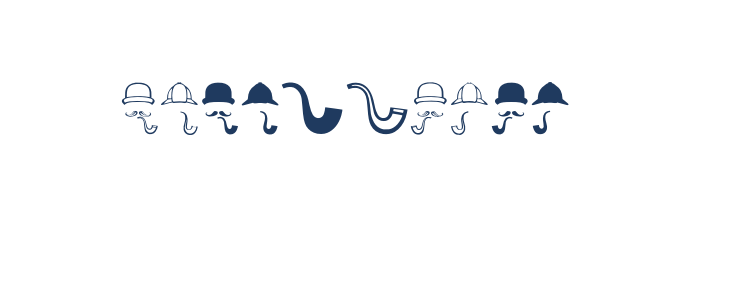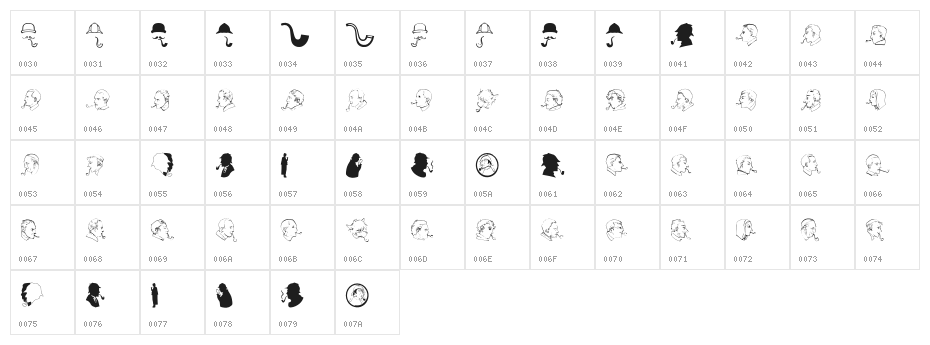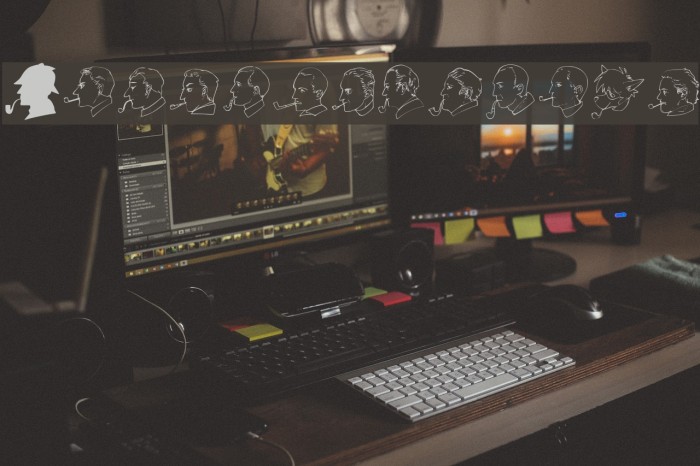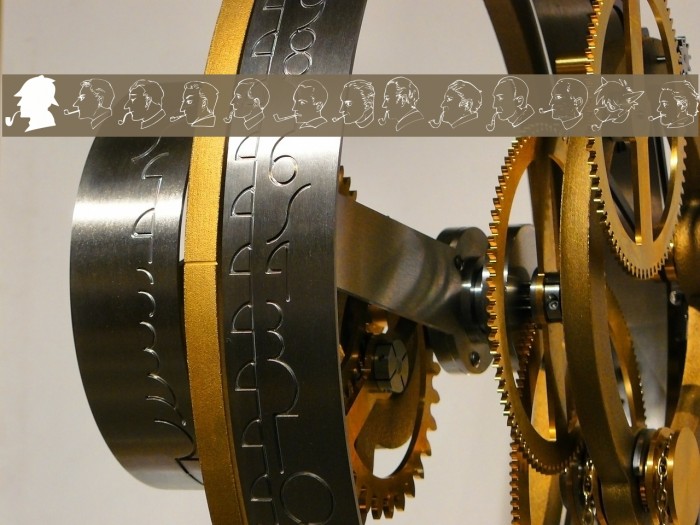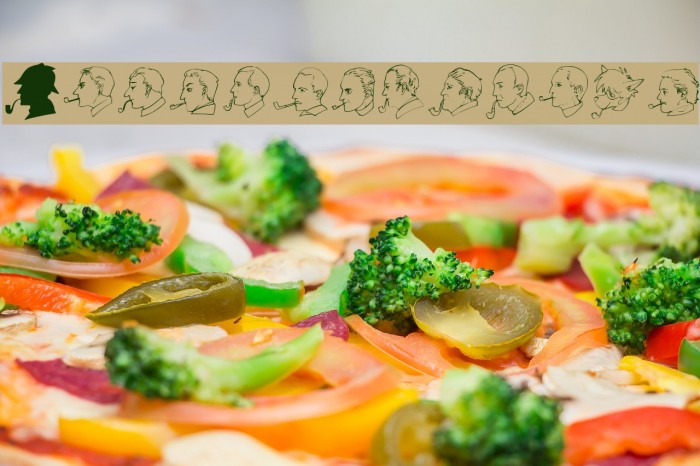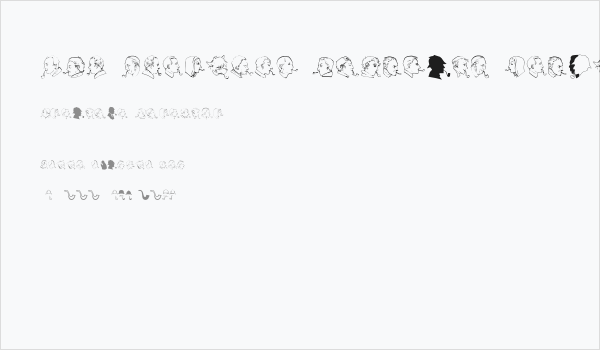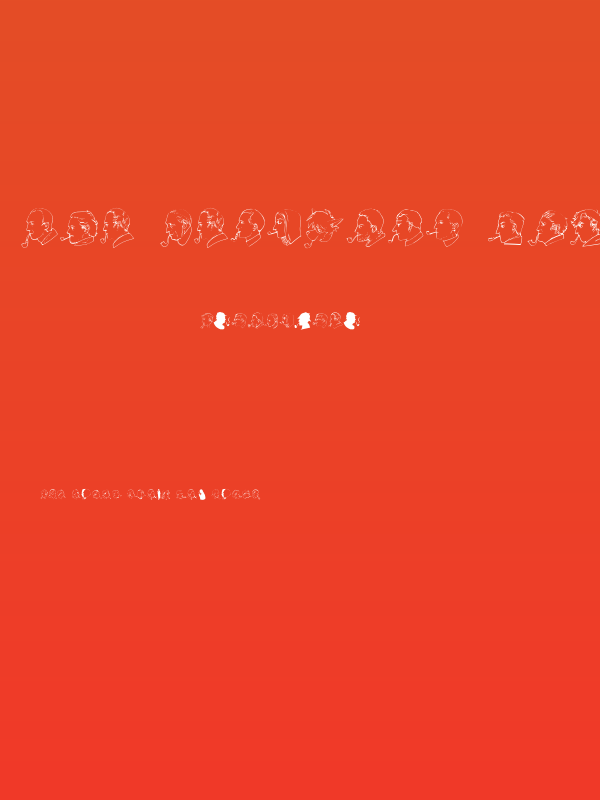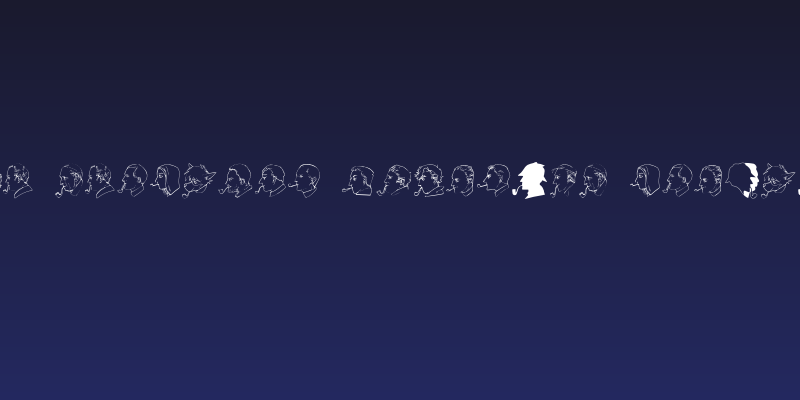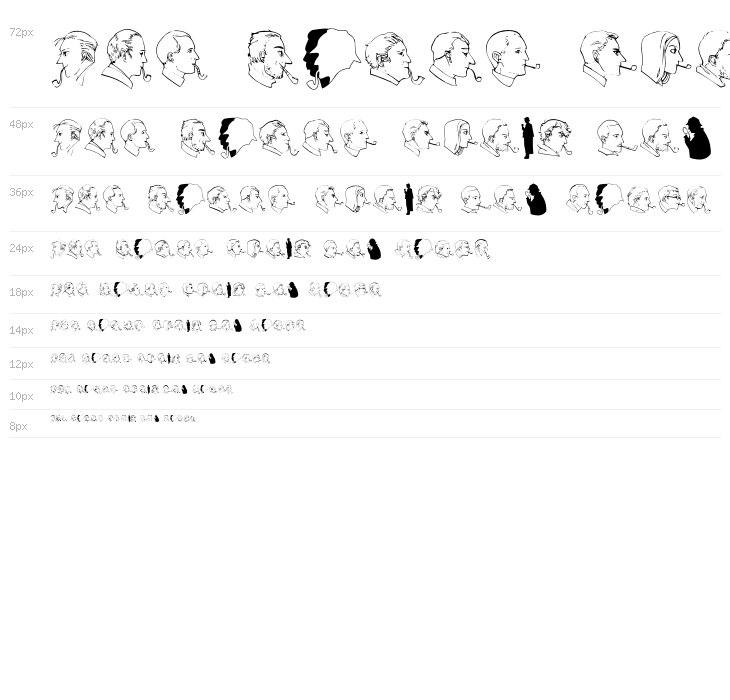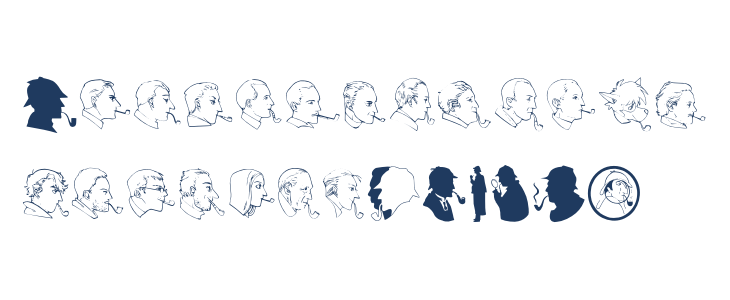
JMH Sherlock Dingbats Regular Font
JMH Sherlock Dingbats Regular Description
This is a decorative dingbat font featuring a series of silhouettes and illustrations inspired by classic detective imagery. The characters include profiles of individuals with distinctive features such as pipes and hats, reminiscent of iconic detective figures. The style is playful and thematic, making it ideal for projects that require a touch of mystery or a vintage detective theme. The illustrations are detailed and vary in complexity, offering a range of options for creative design work.
| Overall Style | Vintage, Decorative |
| Use Case | Logos, Decorative elements, Themed designs |
| Proposed Projects | Ideal for themed event invitations, mystery novels, escape room branding, or any project requiring a vintage detective aesthetic. |